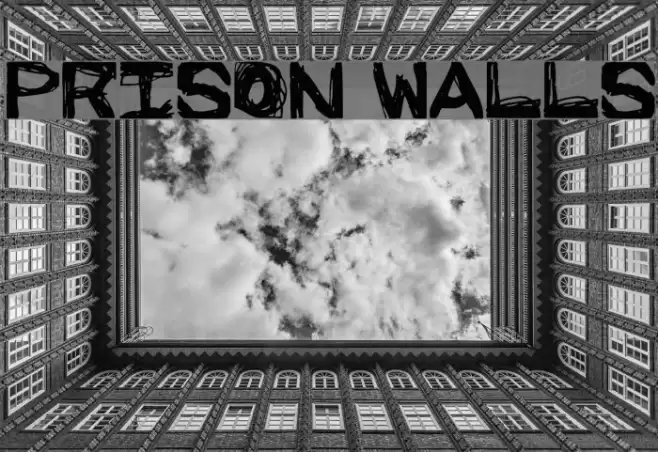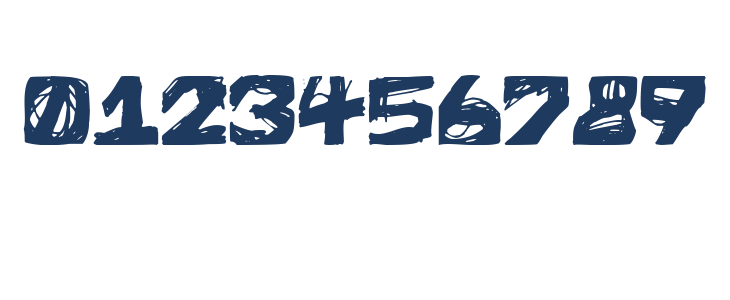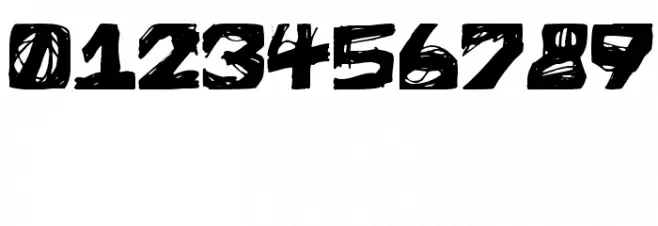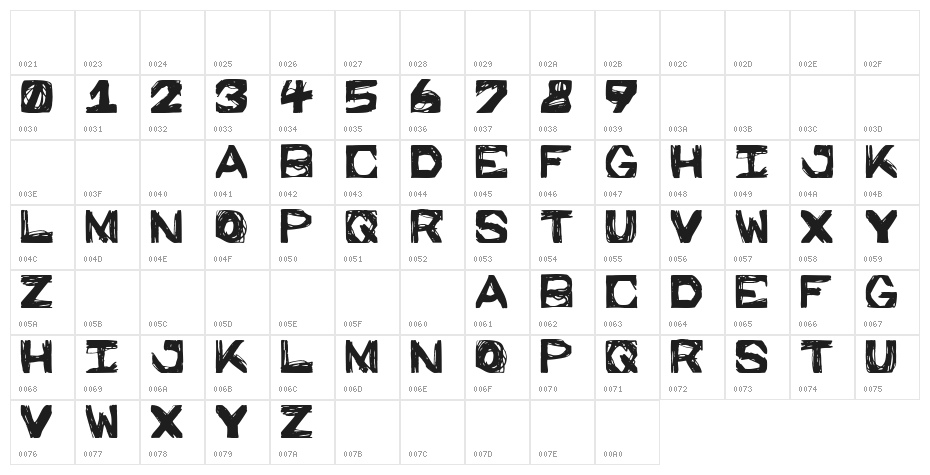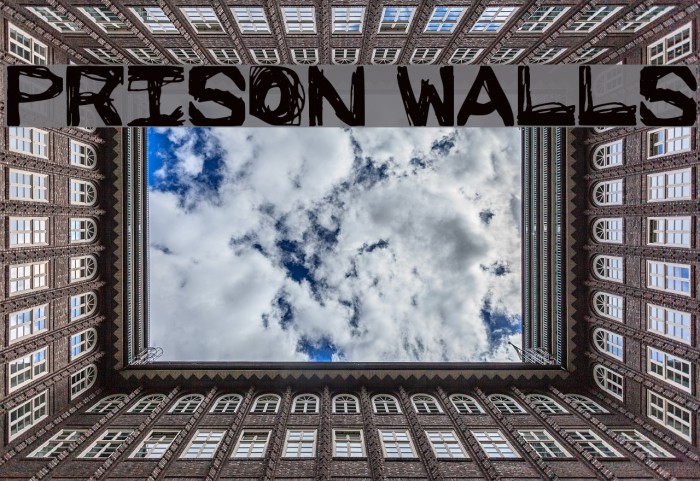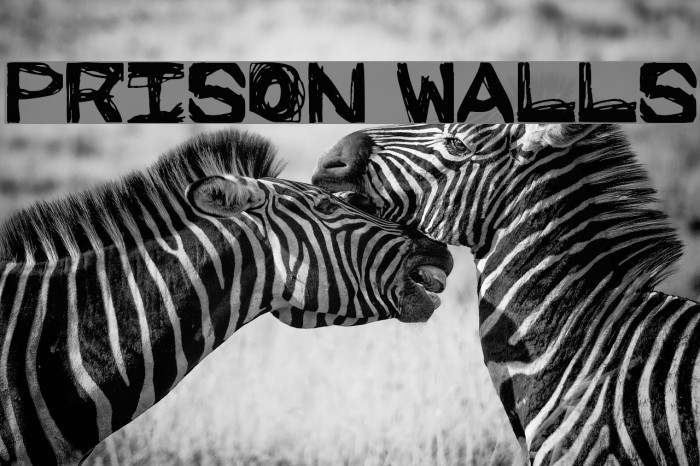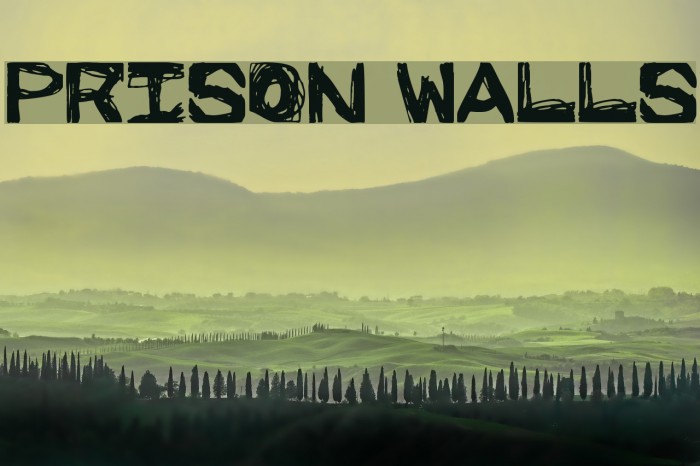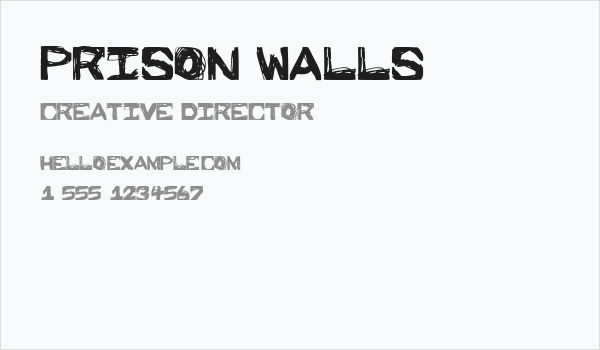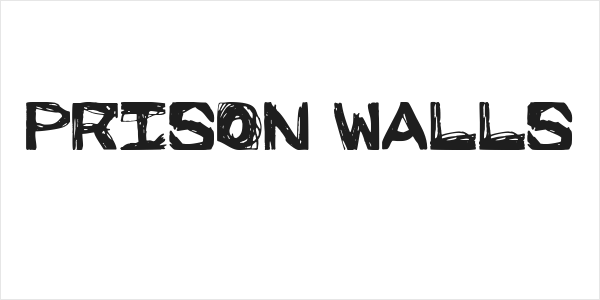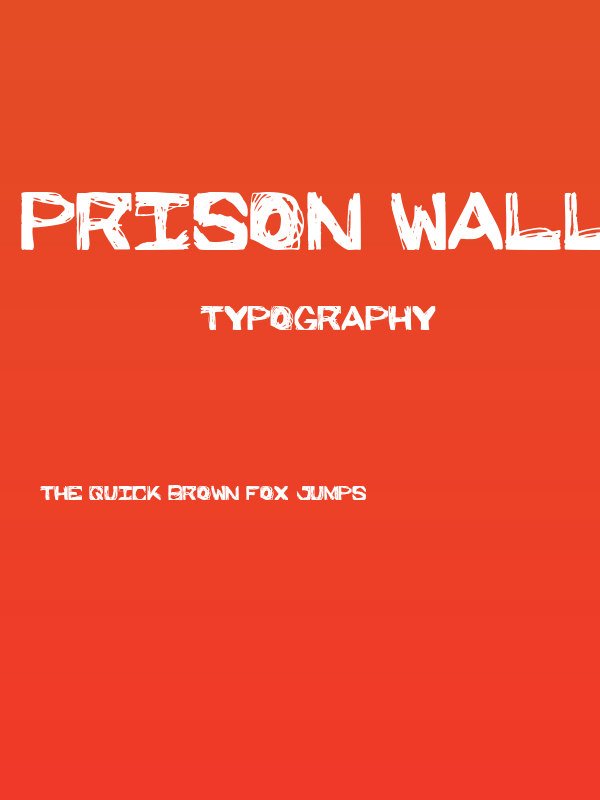
Prison Walls Font
Prison Walls Description
This font features a bold, distressed style with a rough, hand-drawn appearance. The characters are heavily textured, giving them a gritty and edgy look. Each letter and number is uniquely crafted with uneven strokes and a sense of chaos, reminiscent of graffiti or urban art. The font's design is highly decorative, making it stand out with its intense visual impact. It conveys a sense of rebellion and raw energy, perfect for projects that require a strong, unconventional aesthetic.
A bold, distressed font with a gritty, hand-drawn style from Handwritten fonts.
- Proposed Projects: Ideal for album covers, street art-inspired designs, posters, and edgy branding projects.